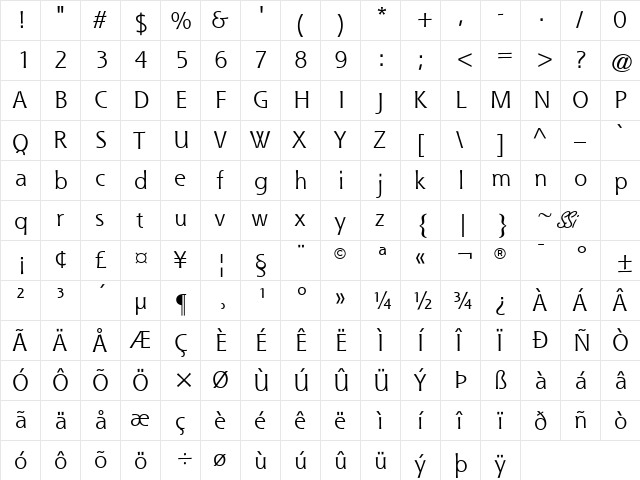
Que SSi Regular
Design Context for Que SSi Typeface
Que SSi is a composed and adaptable typeface that performs quietly and consistently across a wide range of design contexts.